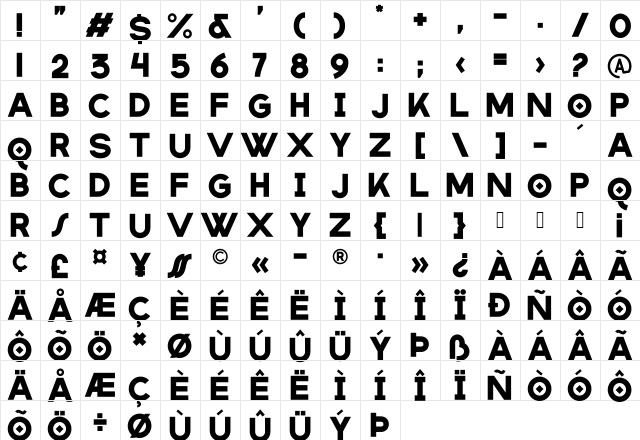
marinford af Font Preview
marinford af
Design Context for marinford Typeface
marinford is a composed and adaptable typeface that performs quietly and consistently across a wide range of design contexts.